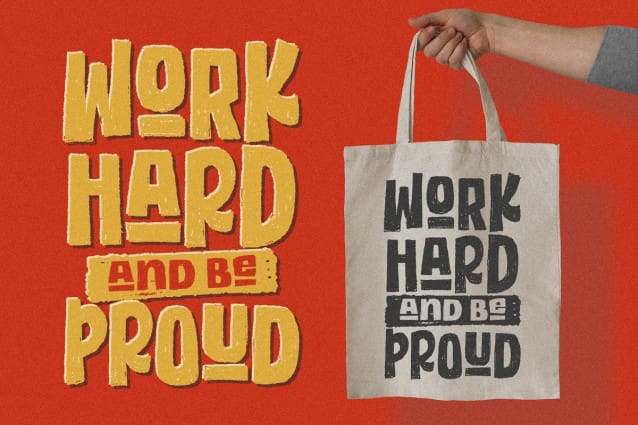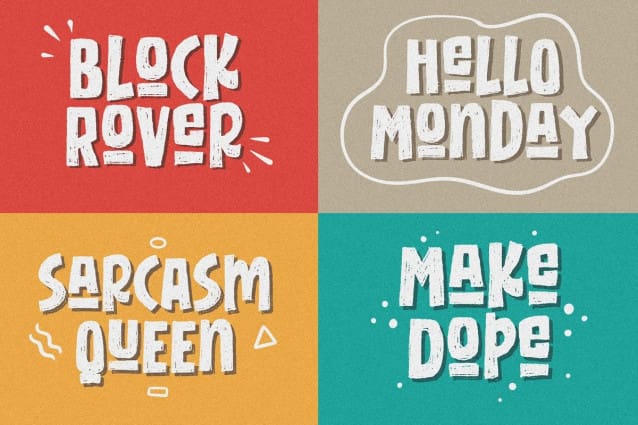
Freaky Vibes Font
Freaky Vibes Font is a unique font that seamlessly blends rugged textures with contemporary style. This versatile font is meticulously crafted to add character and personality to your projects, making it an ideal choice for various creative applications.